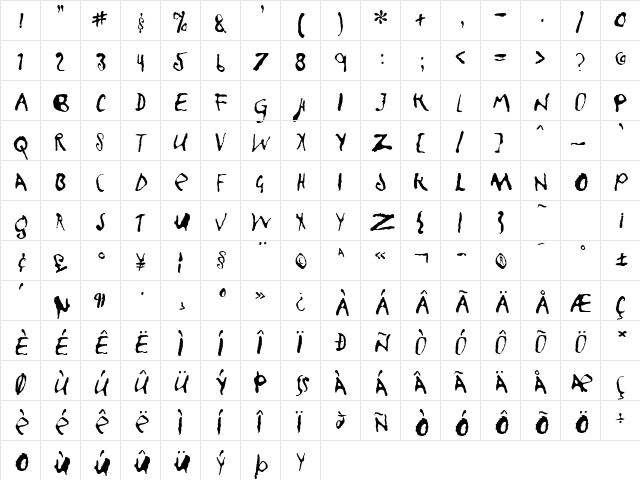
InPotassiumCarbonate Regular
Design Context for InPotassiumCarbonate Typeface
InPotassiumCarbonate is a composed and adaptable typeface that performs quietly and consistently across a wide range of design contexts.